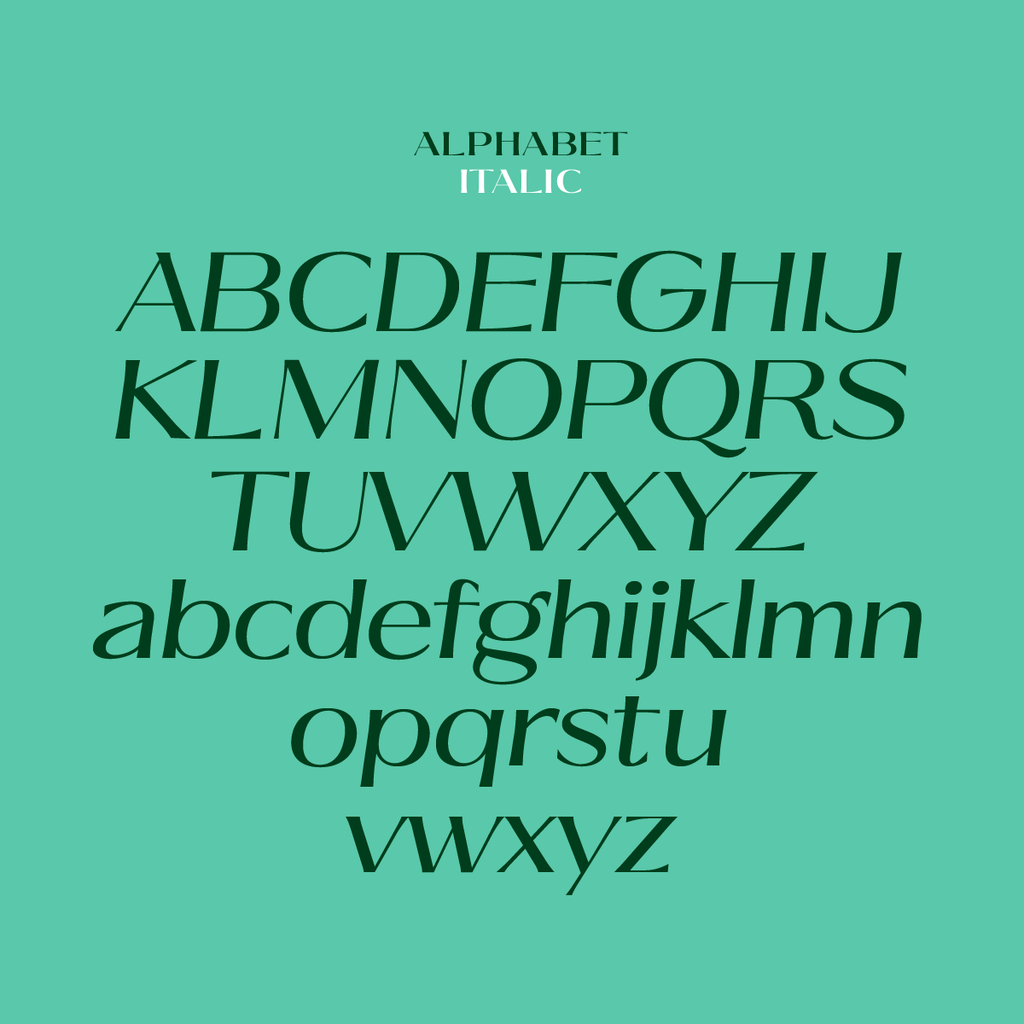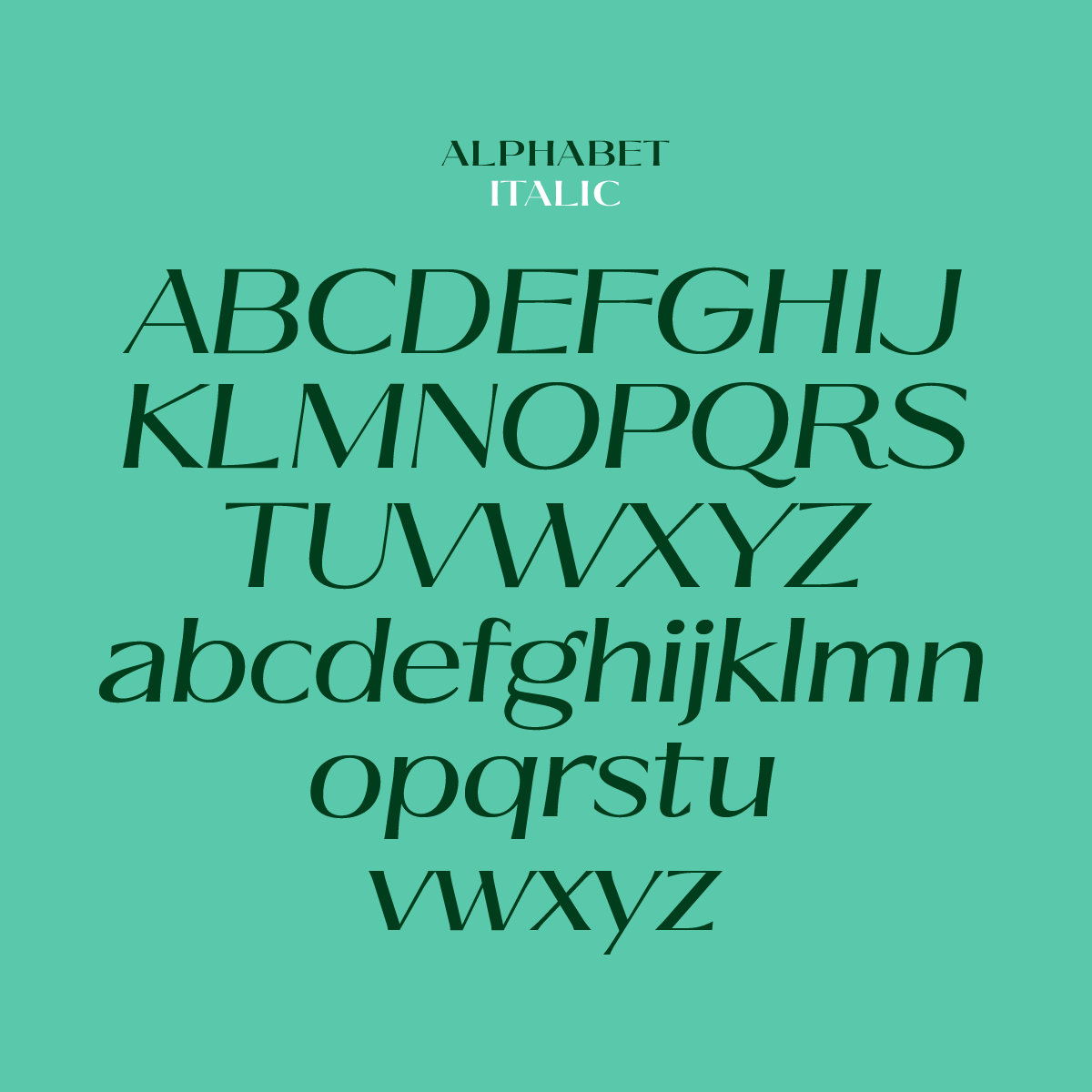
An extended sans with high contrast and flared stems that end in small, serif-like tips.
Set large it reads close to a serif; at text size the wide letters keep a paragraph easy. Beauty and fashion labels, florists and stationery.
Ques is a extended humanist contrast font with flared stems for a serif-style quality. Its calligraphic look and variety of stylistic sets make Ques great for beauty, fashion, and refined branding. Ques works well for logos and body copy across open, elegant designs.
An extended sans with high contrast and flared stems that end in small, serif-like tips.
Set large it reads close to a serif; at text size the wide letters keep a paragraph easy. Beauty and fashion labels, florists and stationery.
Contextual alternates, case-sensitive punctuation, discretionary ligatures, fractions, standard ligatures, ordinals, proportional figures, tabular figures, slashed zero.
On by default: ff, fi, fl, ffi, ffl, ft, tt, TT. Discretionary, switched on by the designer: oo, OO, OC, OG, QU, RR, LL, rt.